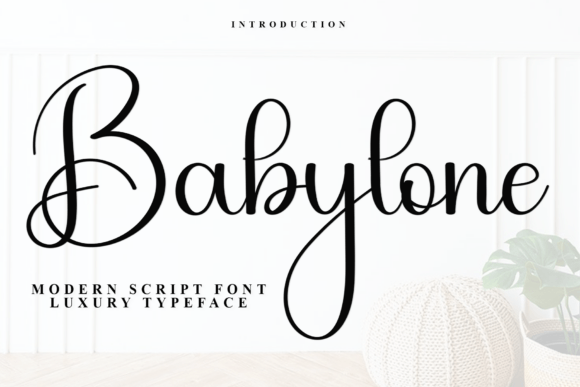
There’s nothing quite like the thrill of brainstorming a new project, surrounded by scribbled notes and scattered ideas. The blank page stares back, waiting for your creative spark to bring it to life. As you begin to sketch out your vision, the right font can be the difference between a good design and a great one.
Enter the Babylone Font, a charming and casual typeface that’s perfect for adding a personal touch to your projects. With its round, playful strokes and hand-drawn aesthetic, this font is sure to bring a smile to your audience’s face. Whether you’re creating invitations, social media graphics, or personal projects, the Babylone Font is a valuable addition to any designer’s toolkit.
Babylone Font Key Features
- Font Family: Babylone
- Font Styles: Regular, Italic, Bold, Bold Italic
- Unique Characteristics: Elegant, cursive script with a touch of ancient flair, suitable for invitations, wedding designs, and other formal events
Babylone Font Review
Overall, I think Babylone Font is a unique and eye-catching choice for designers looking to add some flair to their projects. ✨ One of the things that stands out about this font is its exotic, mystical feel, which makes it perfect for projects that need a touch of sophistication and elegance.
Here are some of the things that work well about Babylone Font:
- ✨ Unique and exotic feel: Babylone Font has a one-of-a-kind aesthetic that sets it apart from more common fonts.
- ✨ Elegant and sophisticated: This font is perfect for projects that need to convey a sense of luxury and refinement.
- ✨ Highly customizable: Babylone Font comes in a range of weights and styles, making it easy to find the perfect version for your project.
- ⚠️ Limited legibility: Due to its ornate and intricate design, Babylone Font can be difficult to read at smaller font sizes.
- ⚠️ Limited character set: Some users have reported issues with the font’s character set, including missing or incorrect characters.
Overall, I think Babylone Font is a solid choice for designers who want to add some visual interest to their projects. While it may have its limitations, its unique feel and high level of customization make it a great option for the right project.
Tips for Getting the Most Out of Babylone Font
Use the Babylone Font to add a touch of elegance and sophistication to your designs. Experiment with different font sizes and styles to create visual interest. Consider pairing the Babylone Font with other fonts to create a unique and eye-catching design.
The Babylone Font is ideal for:
- Business cards and brochures
- Food and beverage packaging
- Luxury brand identities
Alternatives to Babylone Font
The Great Vibes Font is a modern script font designed to evoke a sense of elegance and sophistication. It’s ideal for use in headings, titles, and other situations where a touch of luxury is desired. Great Vibes Font is more ornate and elegant than Babylone Font, making it a better choice for high-end branding and advertising materials.
The Alex Brush Font is a beautiful, hand-drawn script font that’s perfect for use in creative projects, such as wedding invitations, menus, and other materials that require a touch of whimsy and charm. While it shares some similarities with Babylone Font, Alex Brush is more delicate and refined, making it a better choice for projects that require a more subtle approach.
The Carolyna Pro Font is a elegant, high-end script font that’s designed to make a statement. It’s ideal for use in luxury branding, advertising, and other high-end materials where a touch of sophistication is desired. Carolyna Pro Font is more luxurious and refined than Babylone Font, making it a better choice for projects that require a high level of elegance and sophistication.
The Pacifico Font is a beautiful, modern script font that’s designed to evoke a sense of relaxation and calm. It’s ideal for use in creative projects, such as travel brochures, menus, and other materials that require a touch of warmth and hospitality. Pacifico Font is more relaxed and casual than Babylone Font, making it a better choice for projects that require a more laid-back approach.
Are there any specific font pairing recommendations for the Babylone Font?
For optimal results, we recommend pairing the Babylone Font with a sans-serif font, such as Open Sans or Lato. This contrast between serif and sans-serif fonts creates a visually appealing and balanced typographic layout.